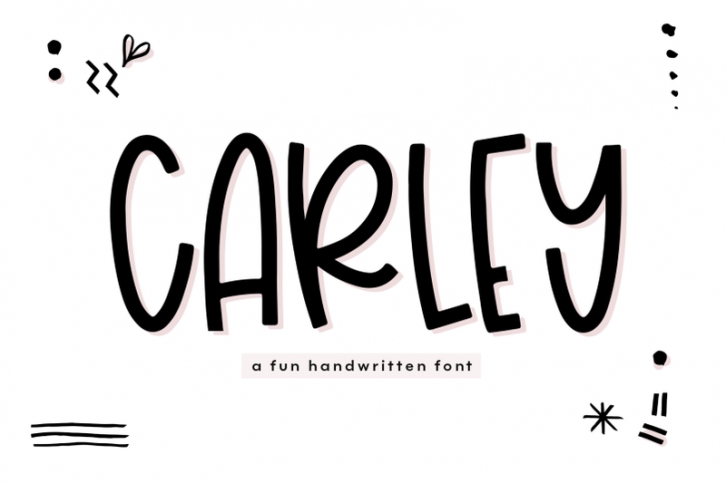
Carley - Quirky Handwritten Font Download
Carley is a fun and quirky handwritten font.
This is an all caps font.
This font is perfect for all of your crafting projects, shirt designs, logos, children's decor, branding, websites, social media and more!